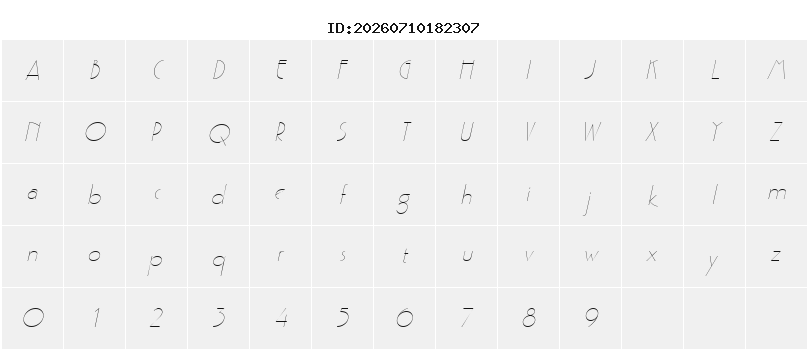
• Font Name: Gaston Wide
• Full Font Name: Gaston Wide Italic
Gaston Wide.ttf is a modern, elegant sans-serif font designed for ultimate readability and visual harmony. Perfect for branding, headlines, web design, and print materials.